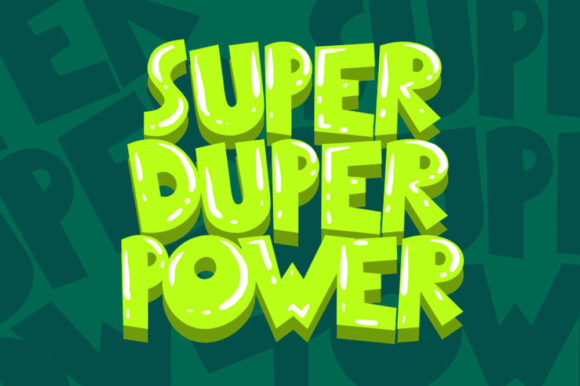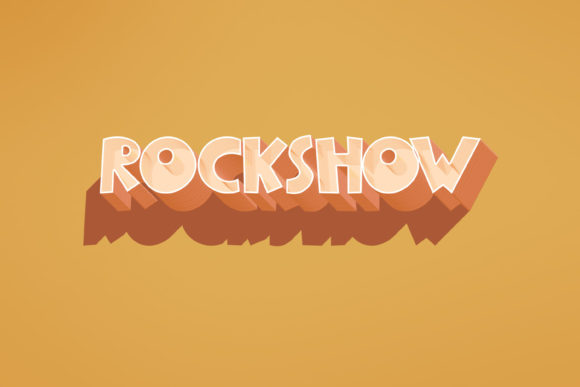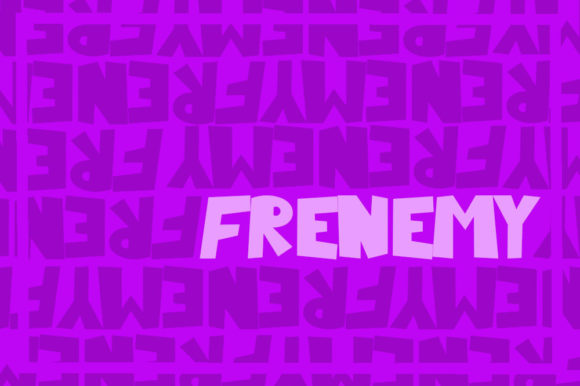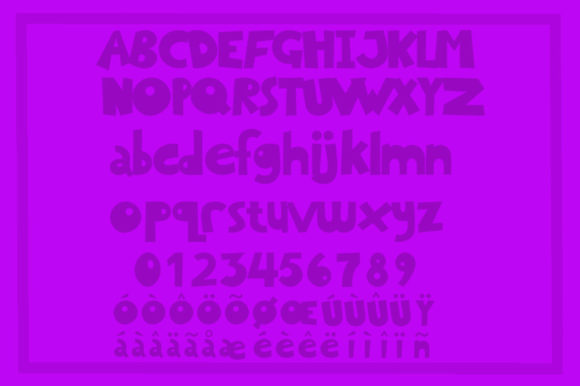
Introducing Chunky Grumpy Font: The Ultimate Display Font for Creative Projects
Are you tired of using the same old fonts in your designs? Do you want to add a touch of personality and whimsy to your creations? Look no further than Chunky Grumpy Font, a thick lettered and fun looking display font that’s sure to elevate your font library. In this article, we’ll take a closer look at Chunky Grumpy Font, its features, and how it can be used to take your designs to the next level.
What is Chunky Grumpy Font?
Chunky Grumpy Font is a display font that’s designed to make a statement. Its thick, chunky letters are perfect for creating eye-catching headlines, titles, and graphics that demand attention. The font’s fun and playful design makes it ideal for a wide range of creative projects, from children’s books and educational materials to posters, flyers, and social media graphics.
Key Features of Chunky Grumpy Font
• Thick and bold letters: Chunky Grumpy Font features thick, chunky letters that are perfect for creating eye-catching headlines and titles.
• Fun and playful design: The font’s fun and playful design makes it ideal for creative projects that require a touch of personality and whimsy.
• Highly versatile: Chunky Grumpy Font can be used for a wide range of creative projects, from children’s books and educational materials to posters, flyers, and social media graphics.
• Easily readable: Despite its bold design, Chunky Grumpy Font is easily readable, making it perfect for use in titles, headings, and other display text.
Benefits of Using Chunky Grumpy Font
So why should you use Chunky Grumpy Font in your designs? Here are just a few benefits of using this amazing display font:
• Adds personality to your designs: Chunky Grumpy Font adds a touch of personality and whimsy to your designs, making them stand out from the crowd.
• Increases readability: The font’s bold design makes it easily readable, even at small sizes.
• Versatile: Chunky Grumpy Font can be used for a wide range of creative projects, making it a valuable addition to your font library.
• Time-saving: With Chunky Grumpy Font, you can create professional-looking designs in no time, saving you time and effort.
How to Use Chunky Grumpy Font
Using Chunky Grumpy Font is easy. Here are a few tips to get you started:
• Use it for headlines and titles: Chunky Grumpy Font is perfect for use in headlines and titles, where its bold design can really make an impact.
• Experiment with different colors: The font’s bold design makes it perfect for use with bright, bold colors.
• Pair it with other fonts: Chunky Grumpy Font can be paired with other fonts to create a unique and eye-catching design.
Is Chunky Grumpy Font easy to read?
Yes, despite its bold design, Chunky Grumpy Font is easily readable, making it perfect for use in titles, headings, and other display text.